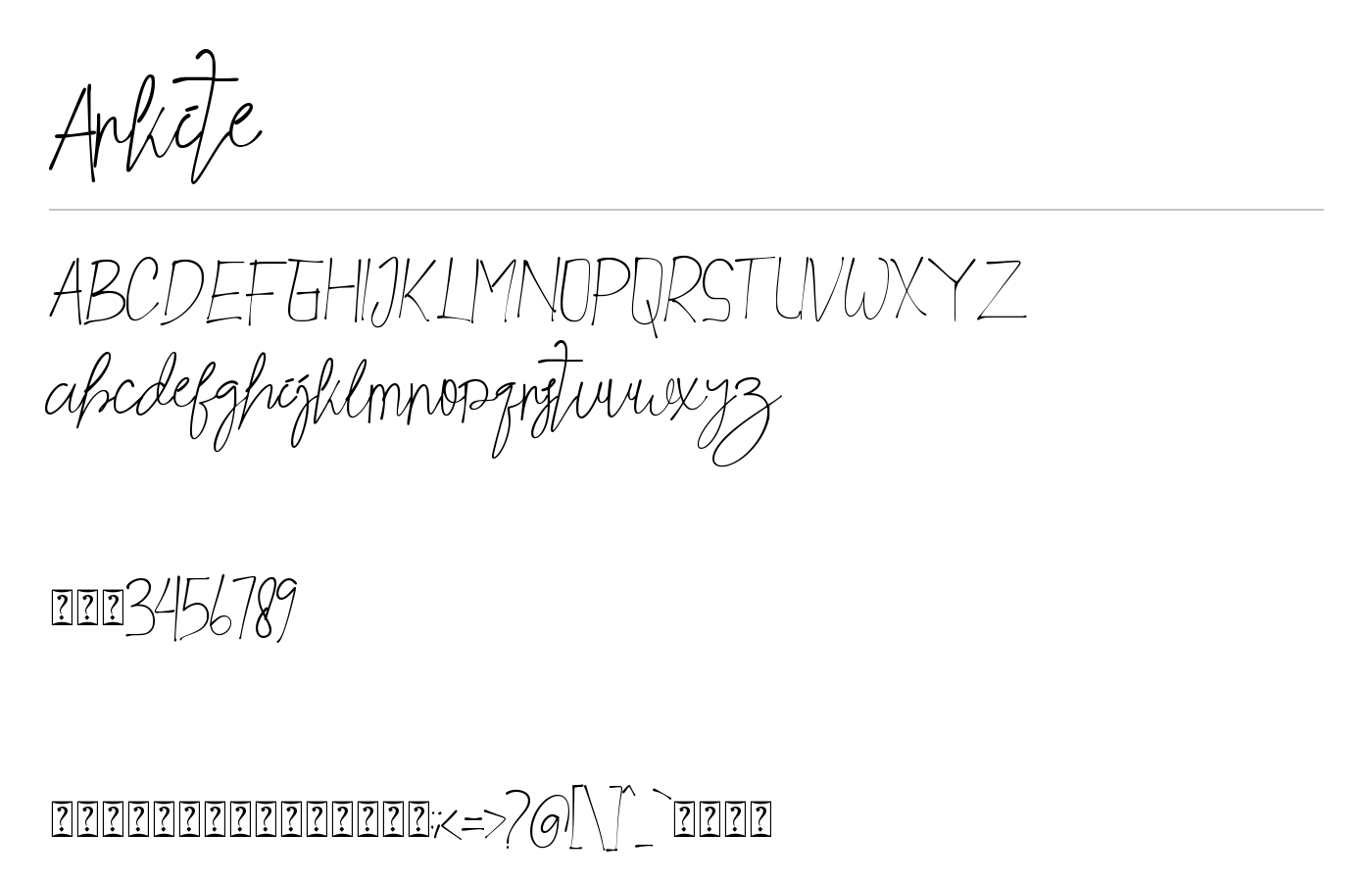
Arkite is a slender, handwritten script font with an elegant and slightly whimsical feel, characterized by its tall, narrow letterforms and delicate, flowing strokes. Its light weight and fluid connections make it ideal for creative, personal, or fashion-forward projects where a touch of sophistication and individuality is desired. This font works beautifully in logos, invitations, and branding that seek a refined yet approachable handwritten style.
Arkite Font
About Arkite Font
| Font family | Arkite Font |
| Designer | Yoga Letter 2023 (Isroni Yoga Prasetya) |